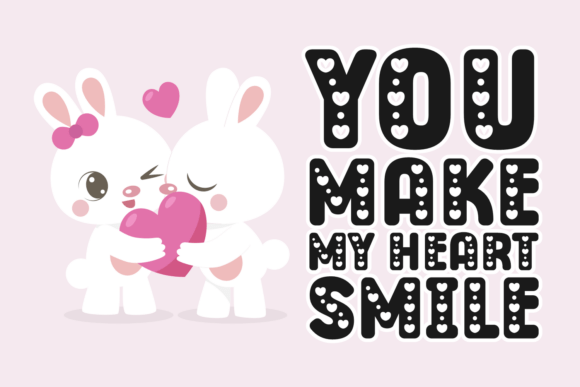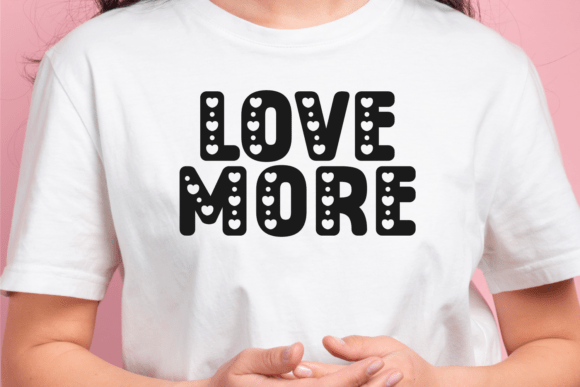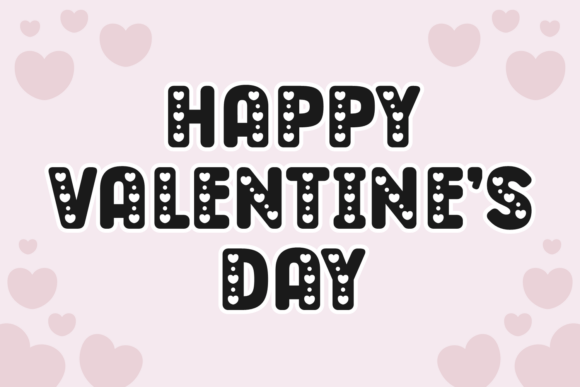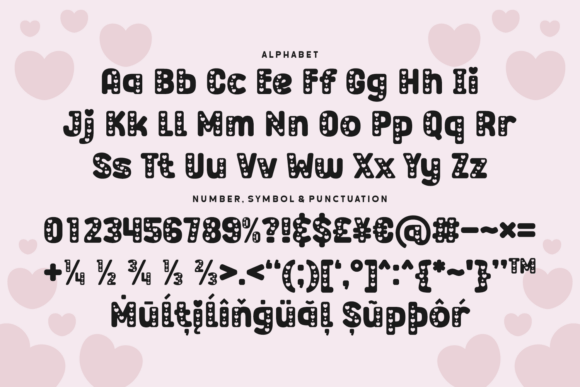
Introducing Angela Lovely: The Font That Will Capture Your Heart
Have you ever been working on a design project, and suddenly, you just can’t seem to find the right font? I recall a particularly frustrating experience while designing a Valentine’s Day card for a client. The project required a font that exuded warmth, playfulness, and a touch of whimsy. That’s when I stumbled upon Angela Lovely, a decorative font that instantly stole my heart.
The First Impression: A Font That Stands Out
Angela Lovely is a bold and charming font that boasts a plump, rounded design. Its distinct letterforms feature soft edges, and every character is beautifully embellished with a whimsical parade of petite heart cut-outs lining the interior. This captivating detail gives Angela Lovely a delightful, cartoonish charm that enhances its affectionate appeal.
My Honest Review: The Good and the Not-So-Good
What I Love About Angela Lovely ✨
• ✅ Unique and eye-catching design that’s perfect for Valentine’s Day designs, children-centric merchandise, relaxed branding, bespoke attire, and more.
• ✅ The font’s dominant yet sweet allure makes it perfect for creating visuals that leave a lasting impression.
• ✅ The soft edges and heart cut-outs give the font a warm, affectionate feel that’s hard to resist.
• ⚠️ The font’s bold design may not be suitable for very small font sizes or body text.
• ⚠️ Some characters may not work well in combination with very ornate or intricate designs.
The Backstory Behind Angela Lovely
Angela Lovely was designed with love and care by a talented type designer who wanted to create a font that would spread joy and positivity. The designer’s inspiration came from childhood memories of handmade cards and decorations, which often featured cute and playful illustrations. With Angela Lovely, the designer aimed to capture the essence of those happy memories and make them accessible to designers and crafters around the world.
Q: What is Angela Lovely best used for?
A: Angela Lovely is perfect for Valentine’s Day designs, children-centric merchandise, relaxed branding, bespoke attire, and any project that requires a bold, yet sweet and affectionate visual charm.